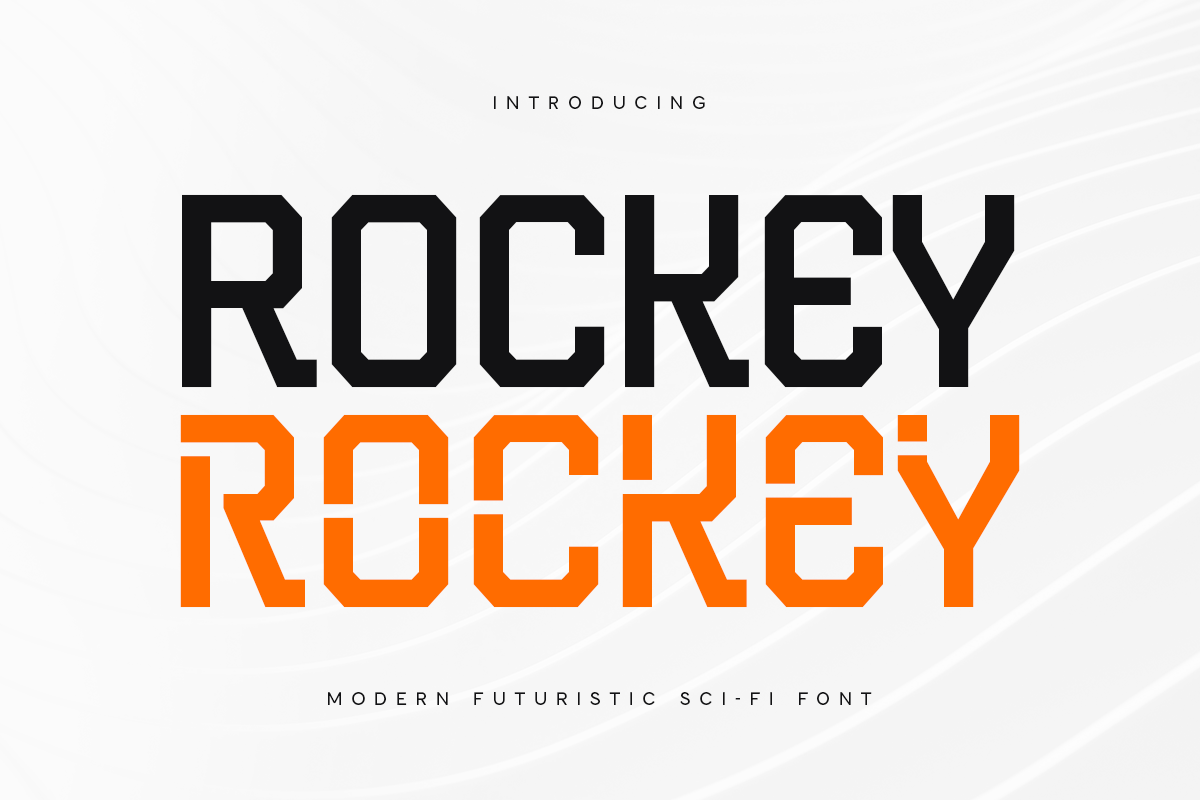
Rockey - Modern Futuristic Font
Transform your tech and sci-fi projects with Rockey's bold futuristic design that commands attention. This modern sci-fi typeface is specially crafted for technology, space, and futuristic design applications. Perfect for creating standout logos, impactful headlines, and eye-catching typography that brings your vision to life. Rockey excels in technology branding, film titles, space-themed projects, and any design that demands a cutting-edge futuristic aesthetic. The clean, modern feel makes it ...